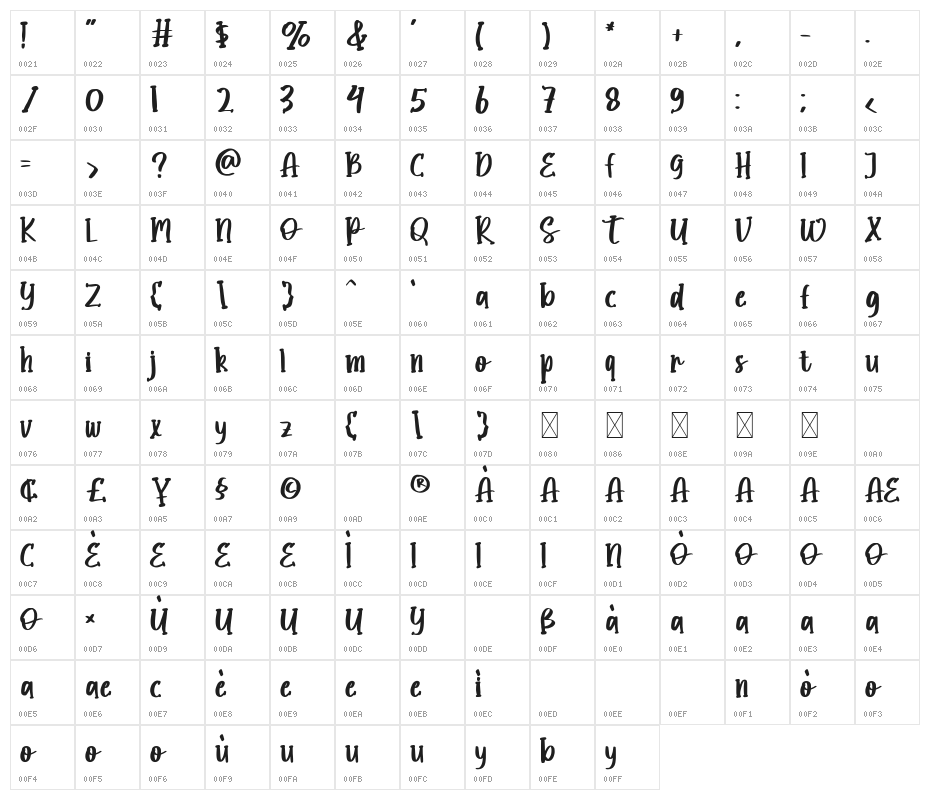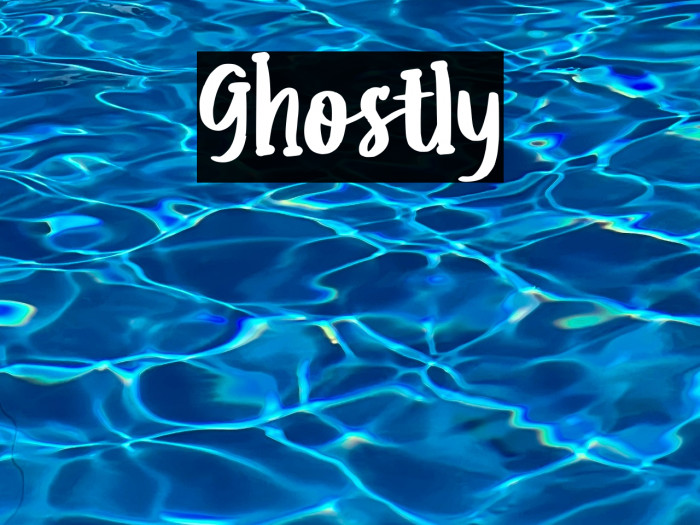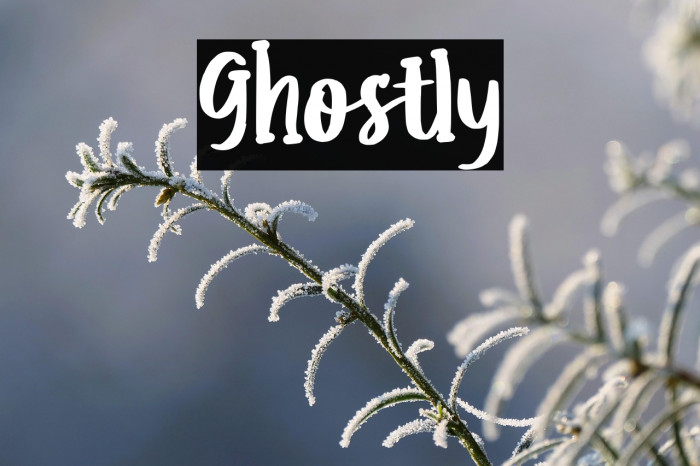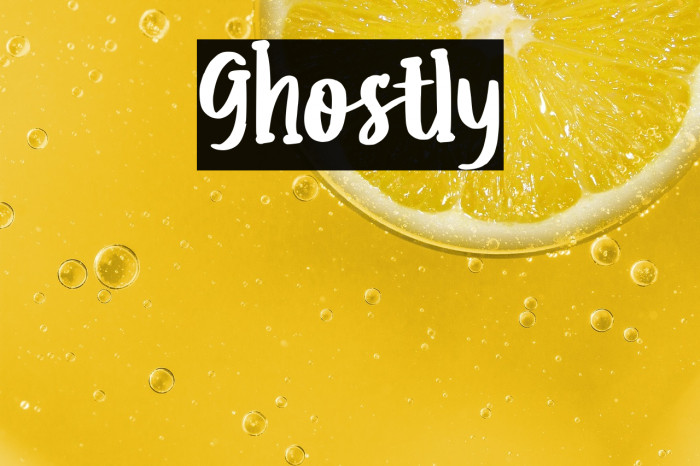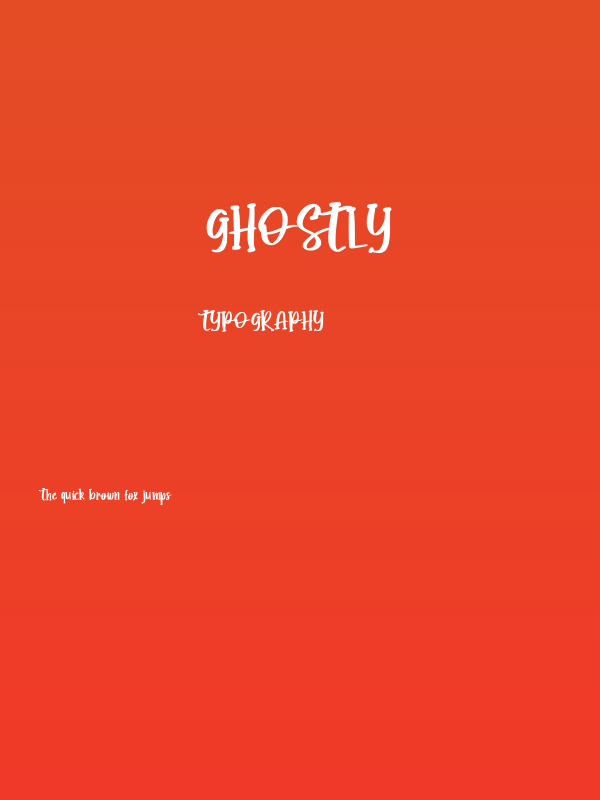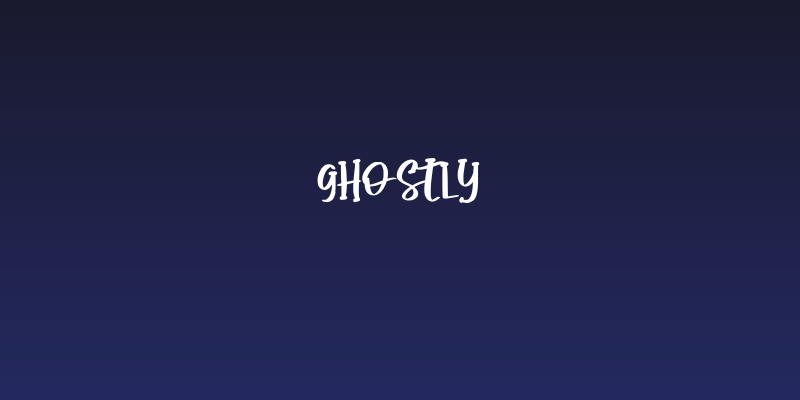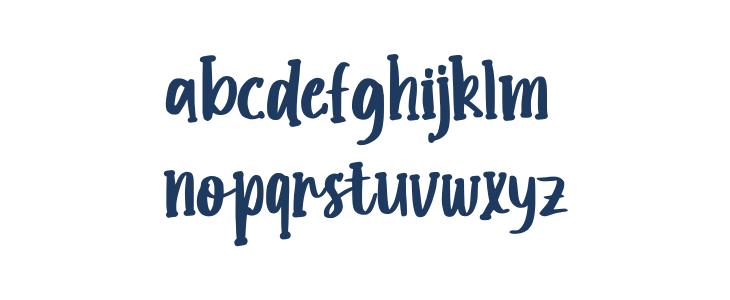
Ghostly Font
Ghostly Description
This font features a playful and whimsical style, characterized by its hand-drawn appearance and uneven stroke widths. The letters have a casual, flowing form that gives them a lively and energetic feel. The uppercase and lowercase letters maintain a consistent style, with slightly exaggerated curves and loops that add to the font's charm. The numerals and special characters follow the same design principles, ensuring a cohesive look across all elements. This font's unique personality makes it ideal for projects that require a touch of fun and creativity.
| Use Case | Logos, Posters, Greeting Cards |
| Proposed Projects | Ideal for children's book covers, playful branding, greeting cards, and creative posters. |